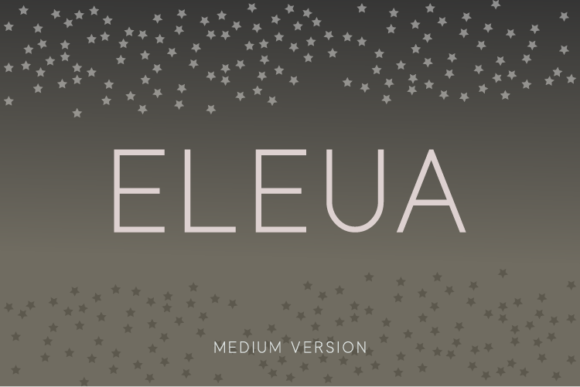
Are you ready to transform your designs with a touch of elegance and sophistication? Look no further than Eleua – the sans serif font that exudes a perfect balance of simplicity and casual charm. With its meticulously crafted letters, Eleua promises to elevate your projects to new heights, leaving a lasting impression on your audience.
Eleua's clean and beautiful arrangement of letters is a testament to the font's versatility. Whether you're working on formal or non-formal designs, Eleua seamlessly adapts, adding a touch of refinement and professionalism. Its crisp and legible characters ensure that your message is conveyed with clarity and impact.
As a sans serif font, Eleua stands out with its modern and minimalistic aesthetic. Its lack of embellishments allows the pure form of the letters to shine through, creating a sleek and contemporary look. Eleua's inherent elegance makes it an ideal choice for branding, logos, headlines, posters, invitations, and any project that demands an air of sophistication.
With Eleua, you have the freedom to choose from a comprehensive range of 10 weights, each representing a different level of thickness. This flexibility empowers you to select the perfect weight that harmonizes with your design vision. Eleua's weights range from delicate and airy to bold and commanding, allowing you to tailor the font to suit the mood and tone of your project.
Elevate your designs to new heights with Eleua's exceptional legibility. Its carefully balanced letterforms ensure that even at small sizes, your text remains sharp and easy to read. This makes Eleua an excellent choice for both print and digital media, ensuring that your message is conveyed with clarity and impact, leaving a lasting impression on your audience.
So, if you're seeking a font that combines simplicity, elegance, and versatility, Eleua is the answer. Its impeccable craftsmanship, wide range of weights, and exceptional legibility make it a must-have in your design arsenal. Embrace the power of Eleua and witness the remarkable transformation it brings to your creative endeavors. Elevate your designs, captivate your audience, and establish a lasting legacy of visual brilliance.